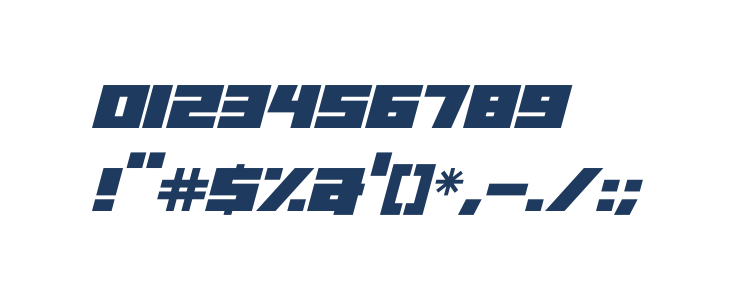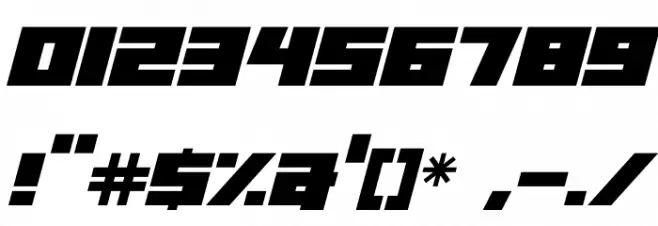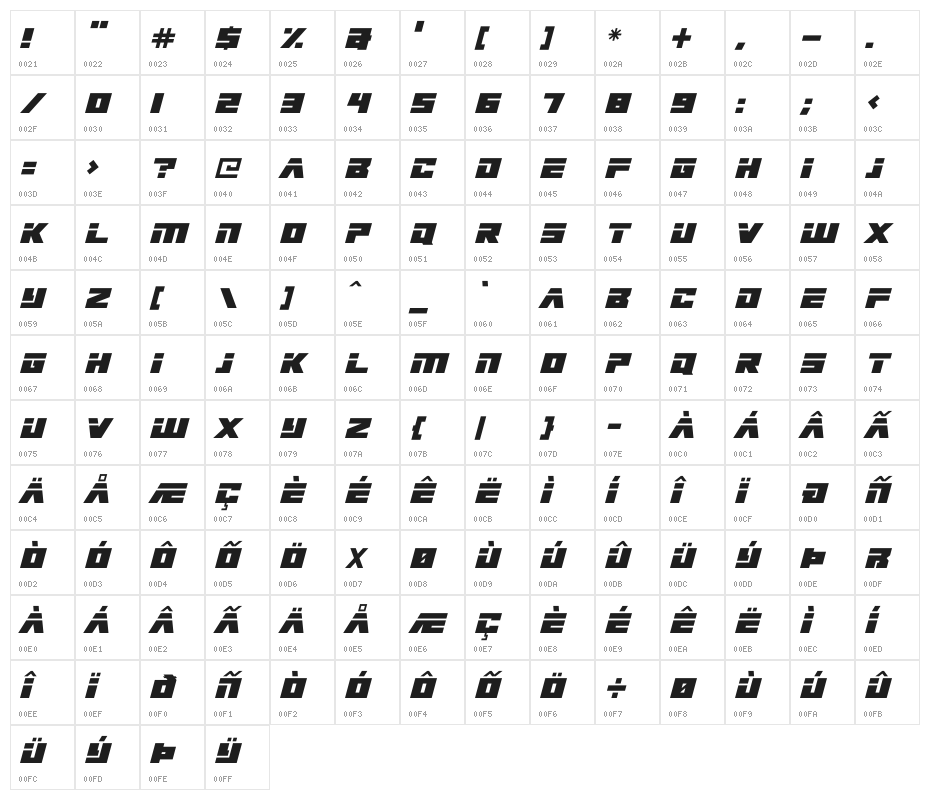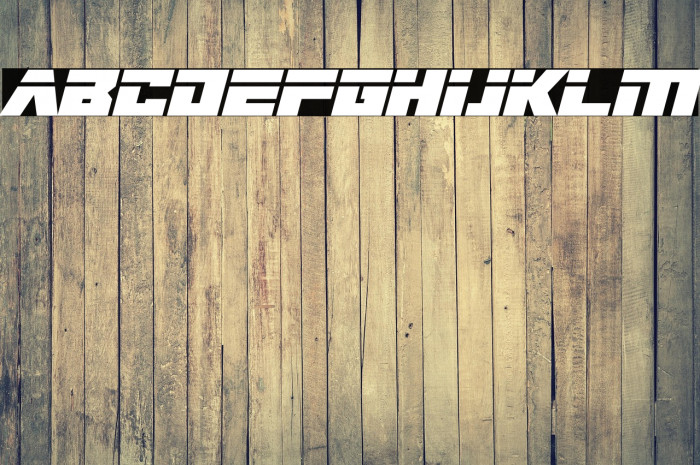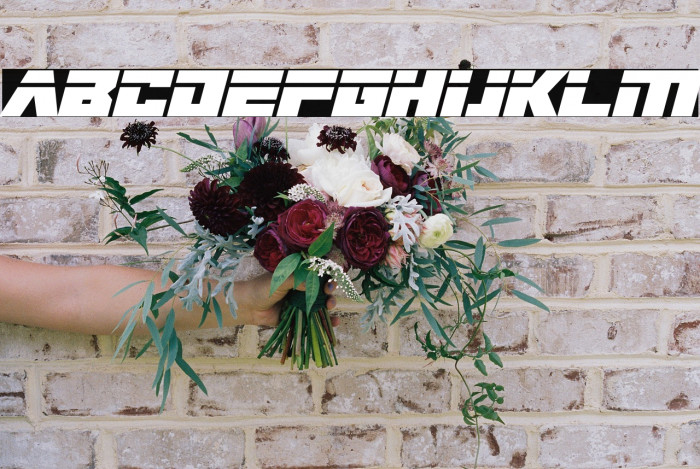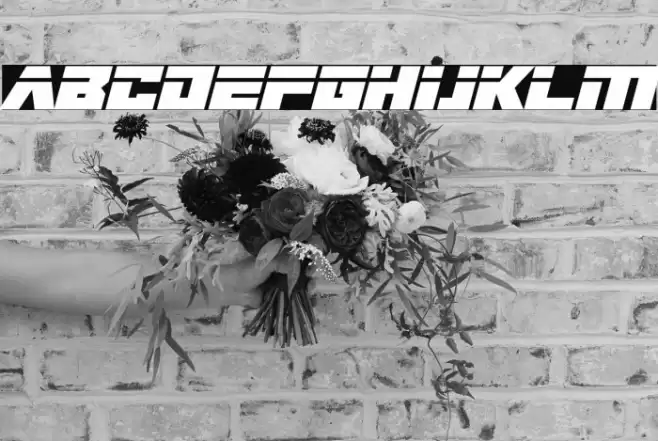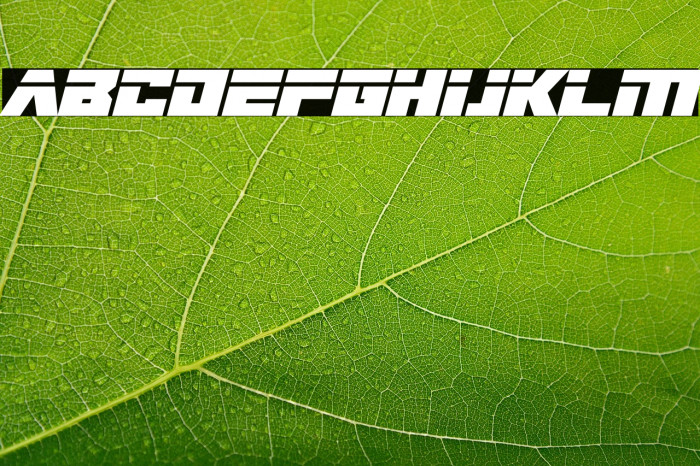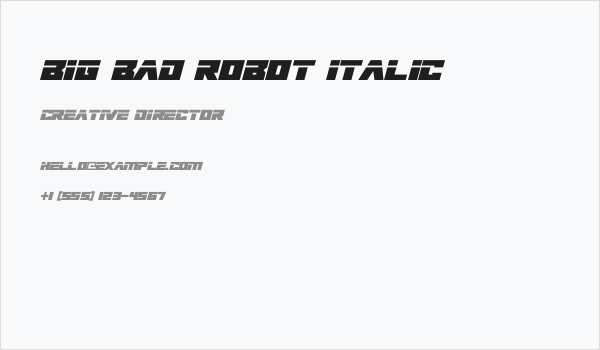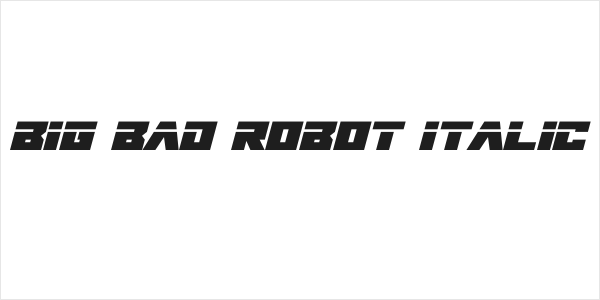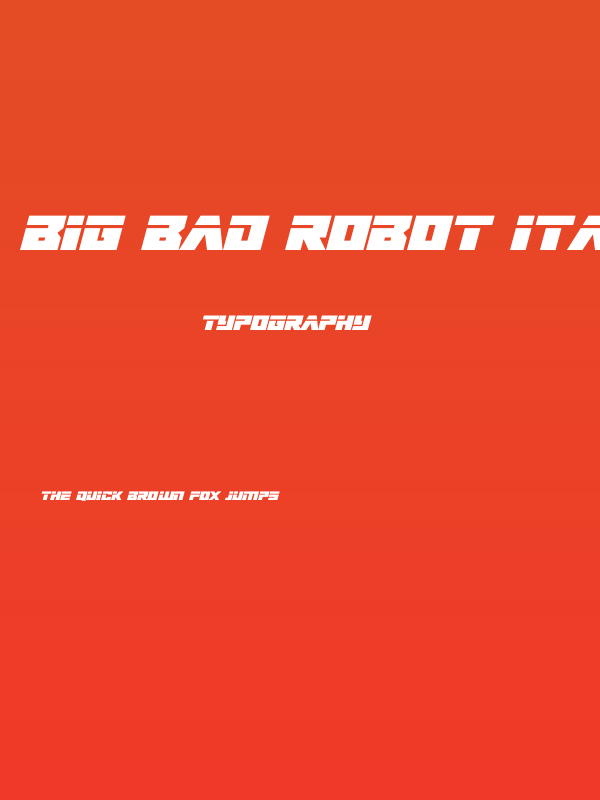
Big Bad Robot Italic Font
Big Bad Robot Italic Description
This font features a bold, futuristic design with sharp angles and a distinct italic slant, giving it a dynamic and aggressive appearance. The characters are constructed with thick, uniform strokes that create a strong visual impact. The geometric shapes and angular cuts contribute to a robotic, high-tech aesthetic, making it ideal for projects that require a modern and edgy look. The uppercase and lowercase letters maintain a consistent style, while the numbers and special characters integrate seamlessly with the overall design. The font's boldness and unique style make it stand out, perfect for attention-grabbing headlines or branding.
| Proposed Projects | Ideal for sci-fi themed designs, video game titles, tech branding, and futuristic posters. |